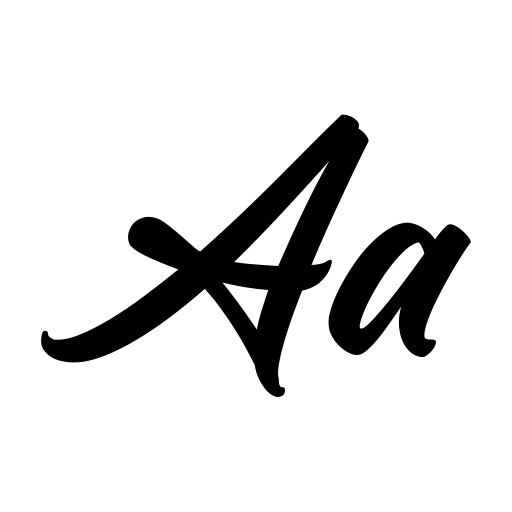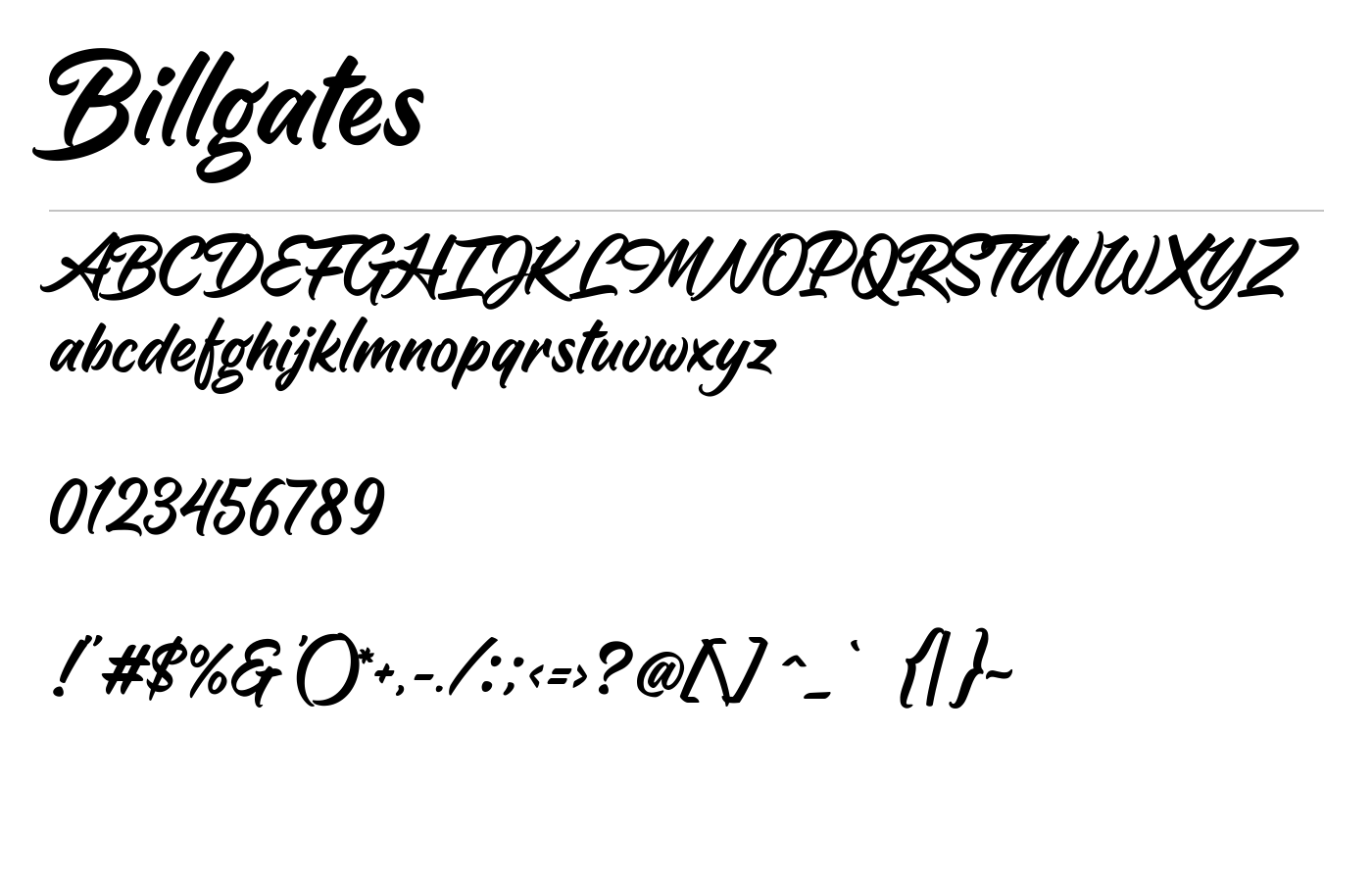
Billgates is a lively script font with a strong, casual flair, featuring smooth, flowing strokes and moderate contrast that give it an approachable yet stylish personality. Its slightly slanted, connected letters evoke a hand-painted look, making it ideal for creative branding, packaging, and headlines where a dynamic, personal touch is desired. This font works well in contexts that need warmth and energy, such as fashion logos, invitations, or trendy editorial designs.
Billgates Font
About Billgates Font
| Font family | Billgates Font |
| Designer | Hendra Pratama |